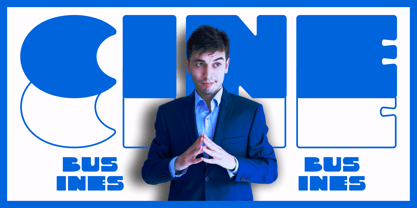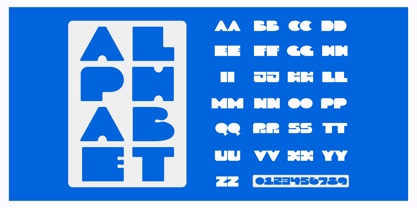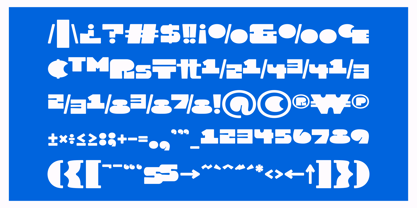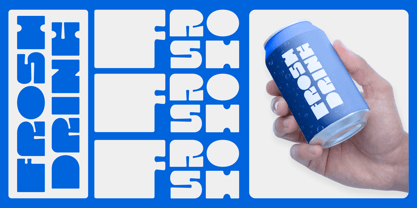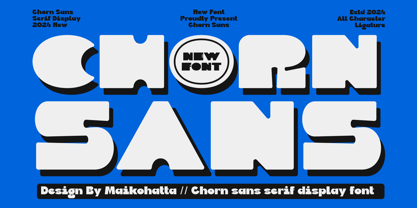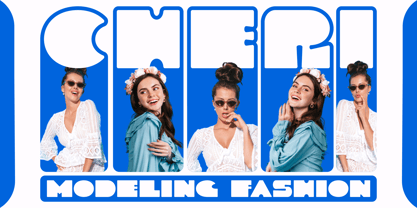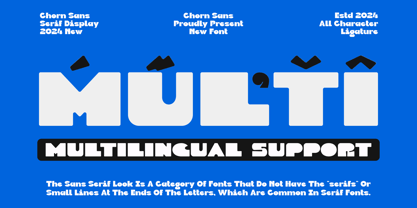
Chorn
by Maikohatta
The Chorn Font Family was designed by Gilang Ternadho and published by Maikohatta. Chorn contains 1 styles.
Introducing our new product Chorn - Sans Serif Display Font
This font is characterized by reflecting joy, cheerfulness and a light atmosphere with a handwritten style often found in comics or cartoons.
This font is perfect for projects that want to highlight elements of playfulness and fun, such as poster designs, invitation cards, comics, or promotional materials aimed at a younger audience or those looking for a fun feel.
Designers: Gilang Ternadho
Publisher: Maikohatta
Foundry: Maikohatta
Design Owner: Maikohatta